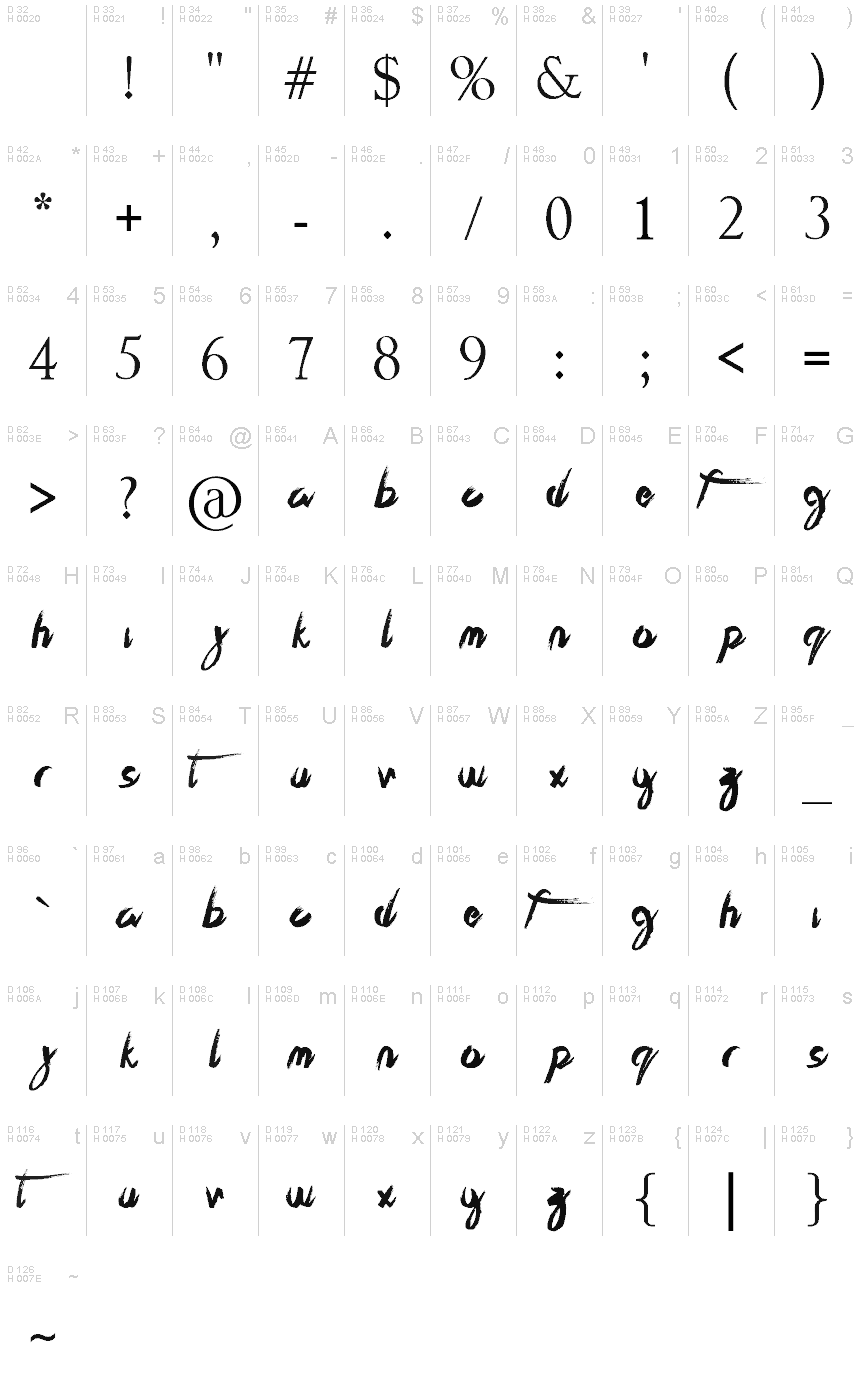
The Best Night
The Best Night, a creation of TattooWoo.com, brings the spontaneous energy of brush strokes to the realm of typography. This font exudes an aesthetic that is at once raw and refined, capturing the essence of hand-painted signage with a modern twist. Each character is crafted with an organic fluidity, making it not only pleasing to the eye but also imbued with a sense of motion and emotion.
With its brush style, The Best Night stands out for its versatility in various creative projects. It's well-suited for designs that require a personal touch or an artistic flair—think event invitations, promotional materials for music or art festivals, or any project that benefits from a handwritten look. The expressive quality of this font ensures that it can carry a design on its own while also playing well when paired with more subdued typefaces.
Whether you're looking to infuse your work with personality or aiming to make a bold statement, The Best Night offers just the right combination of style and charm to elevate your creative endeavors.